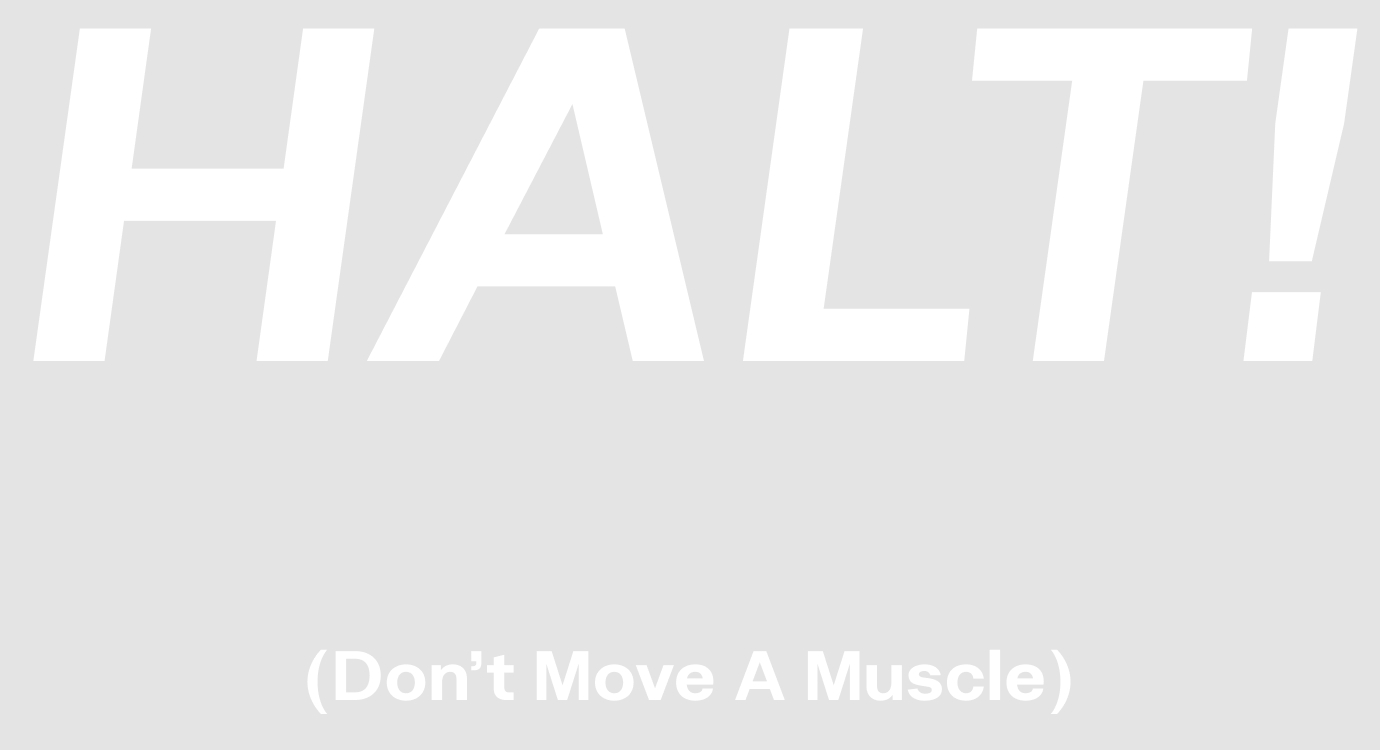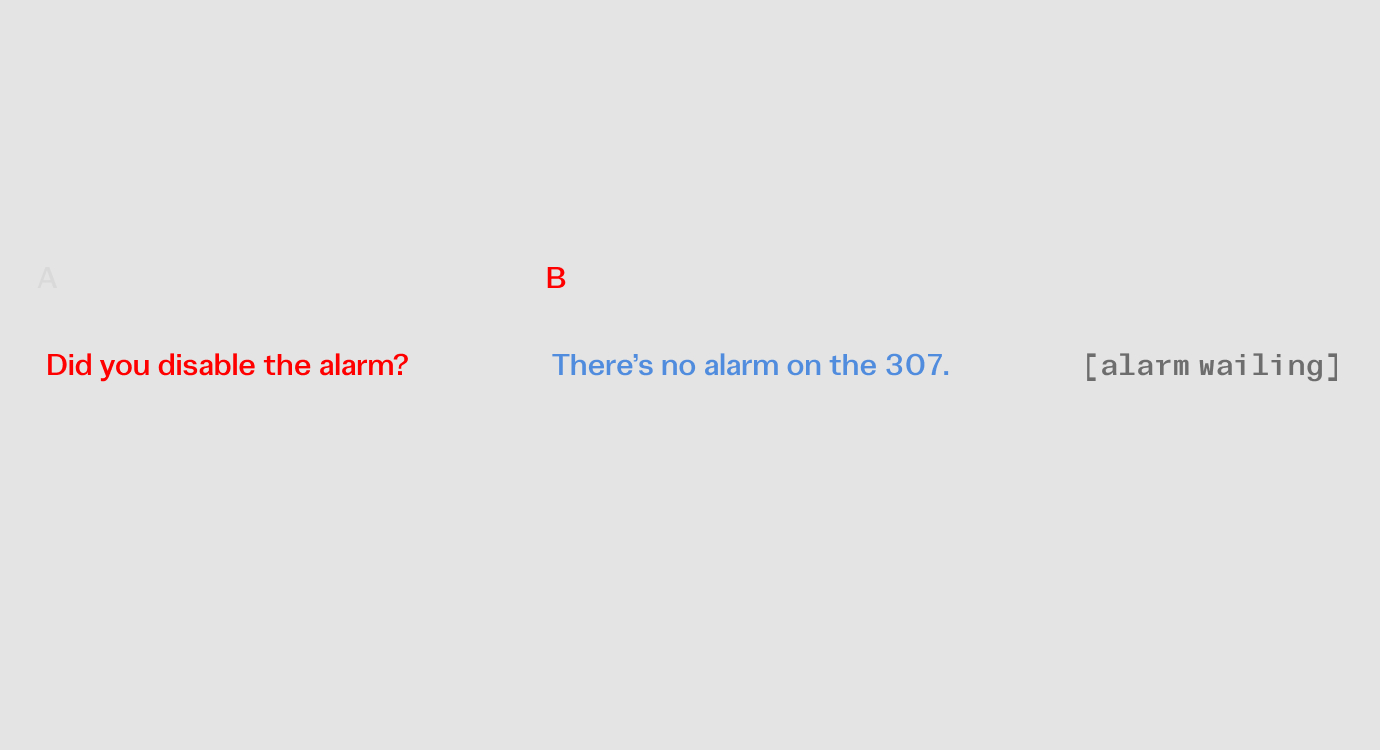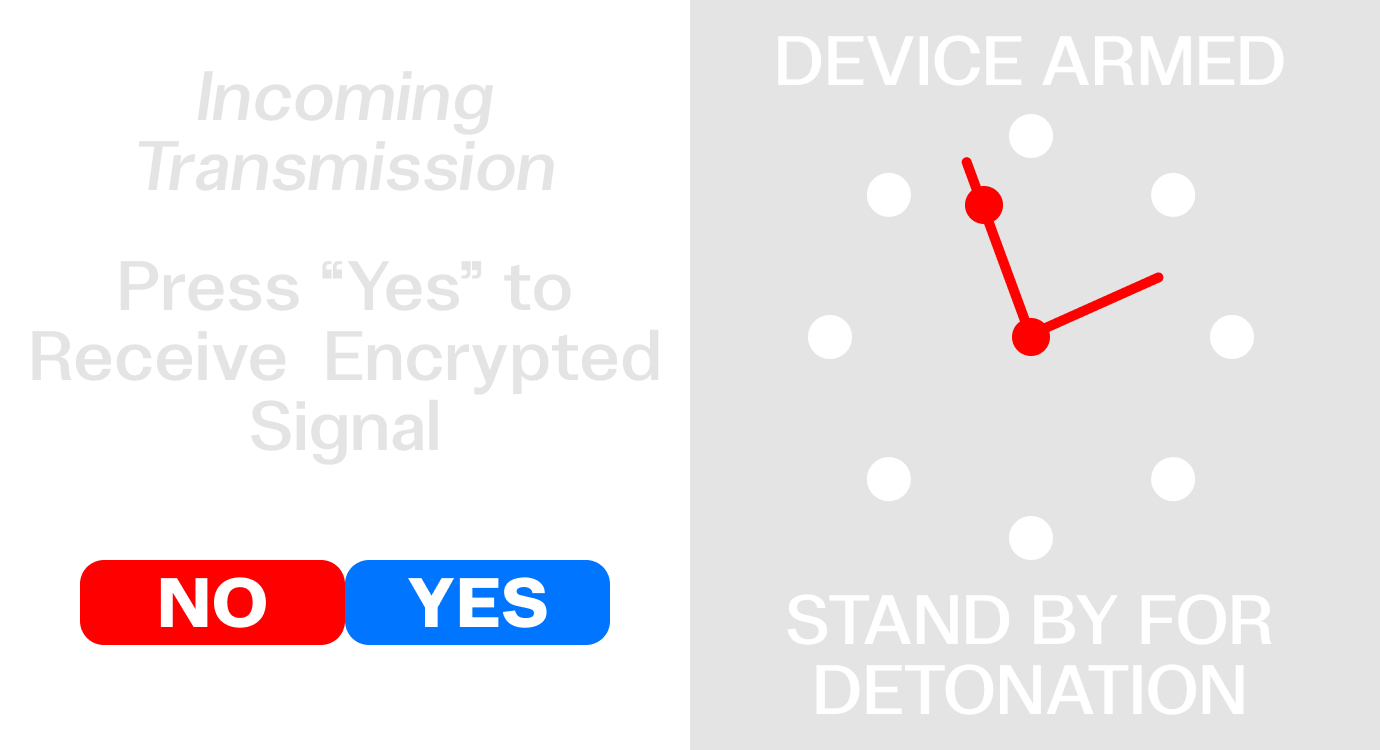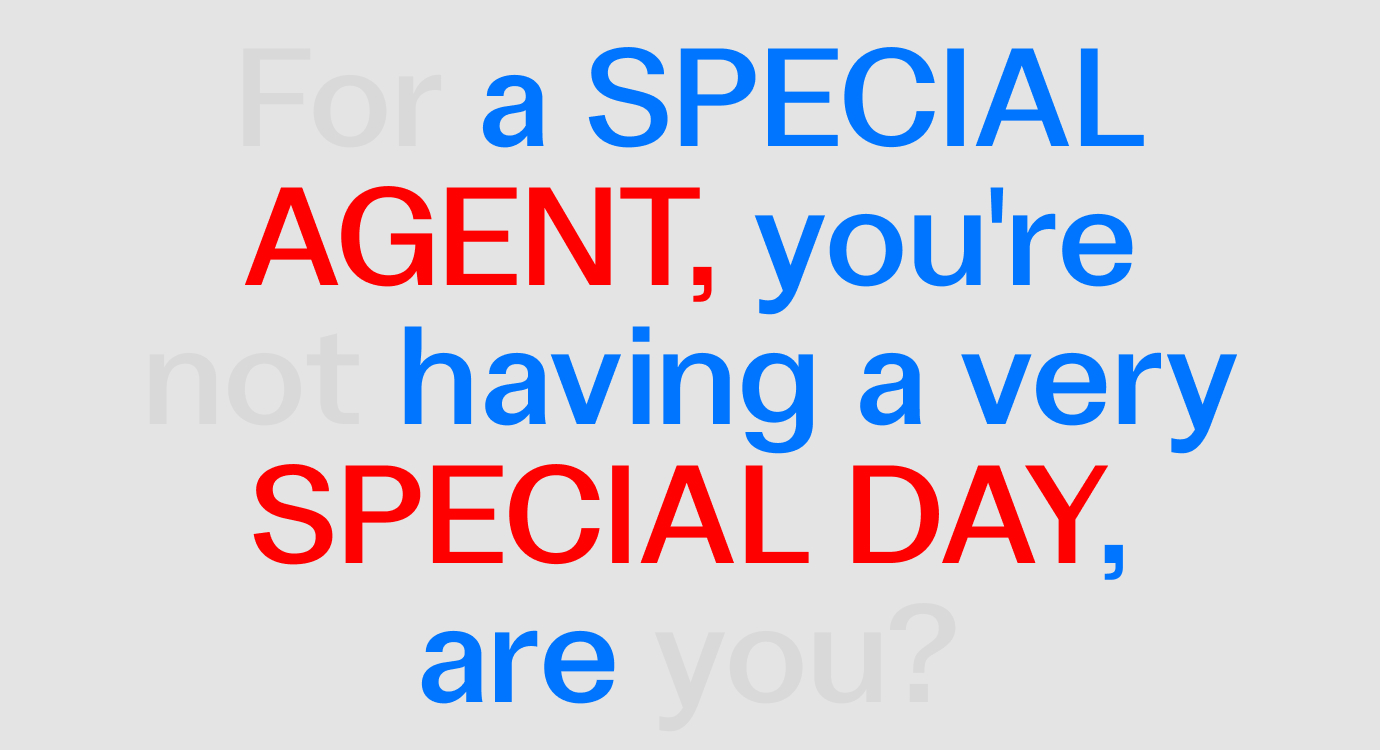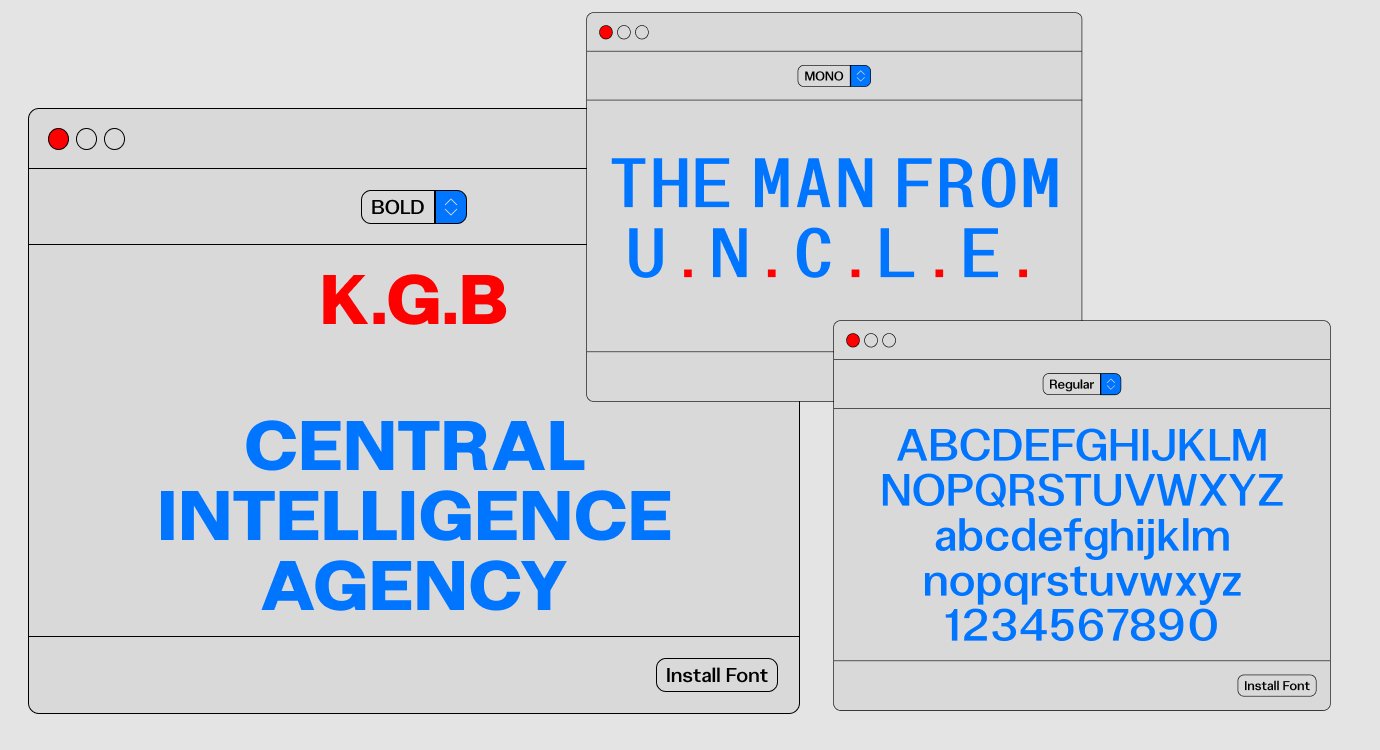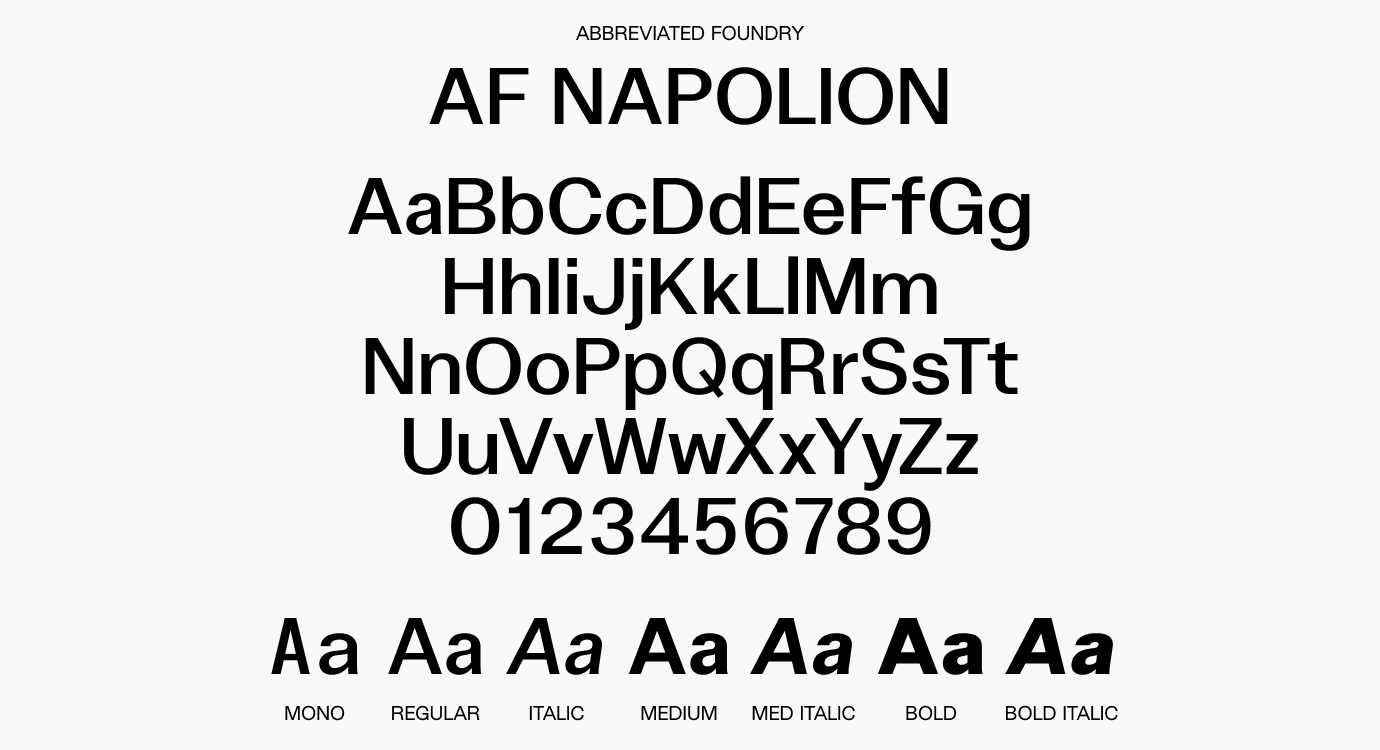
AF Napolion
AF Napolion is grotesque sans-serif that embodies blunt sophistication. With sharp angles, abrupt terminals, and striking contrast, it exudes a brutal, effortless charm. Brimming with cold charisma, it balances cool restraint with commanding presence—a typeface for designs demanding audacious clarity and unapologetic style. Napolion's tough exterior can withstand even the harshest Siberian winters. Perfect for modern espionage aesthetics.